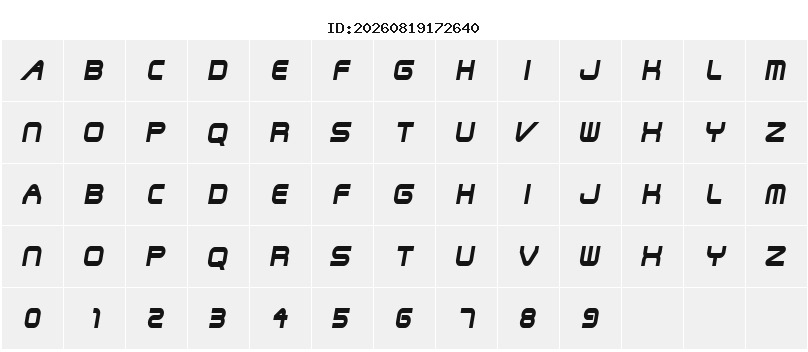
Shuttle-Condensed Preview
• Font Name: Shuttle-Condensed
• Font ID: Macromedia Fontographer 4.1 ShuttleCondensed Italic
• Full Font Name: Shuttle-Condensed Italic
• Version: Macromedia Fontographer 4.1 9/26/96
• PostScript Name: Shuttle-CondensedItalic
• Character Count: 179
About Shuttle-Condensed.ttf
Shuttle-Condensed.ttf is a modern, elegant sans-serif font designed for ultimate readability and visual harmony. Perfect for branding, headlines, web design, and print materials.